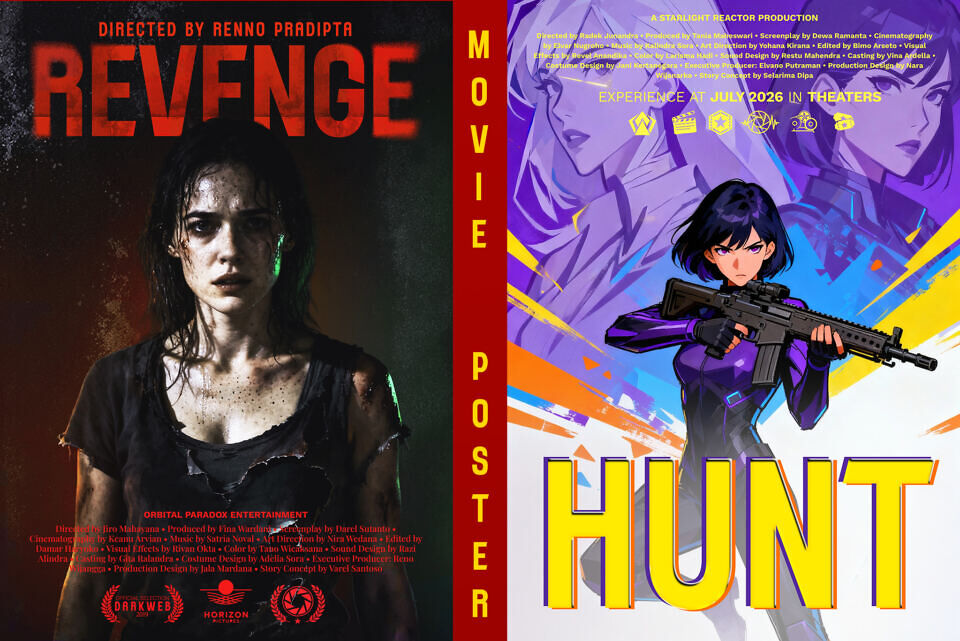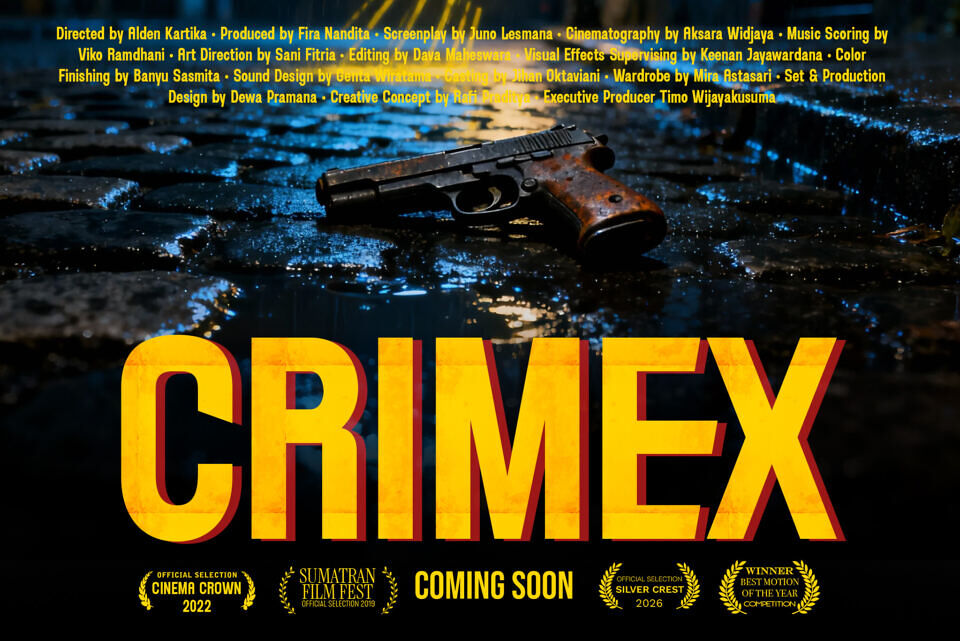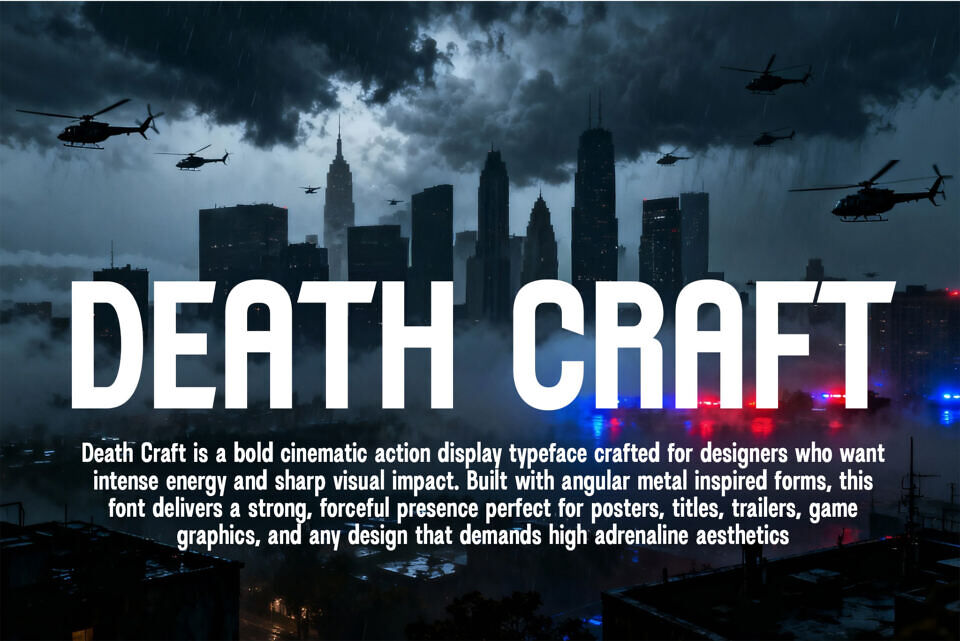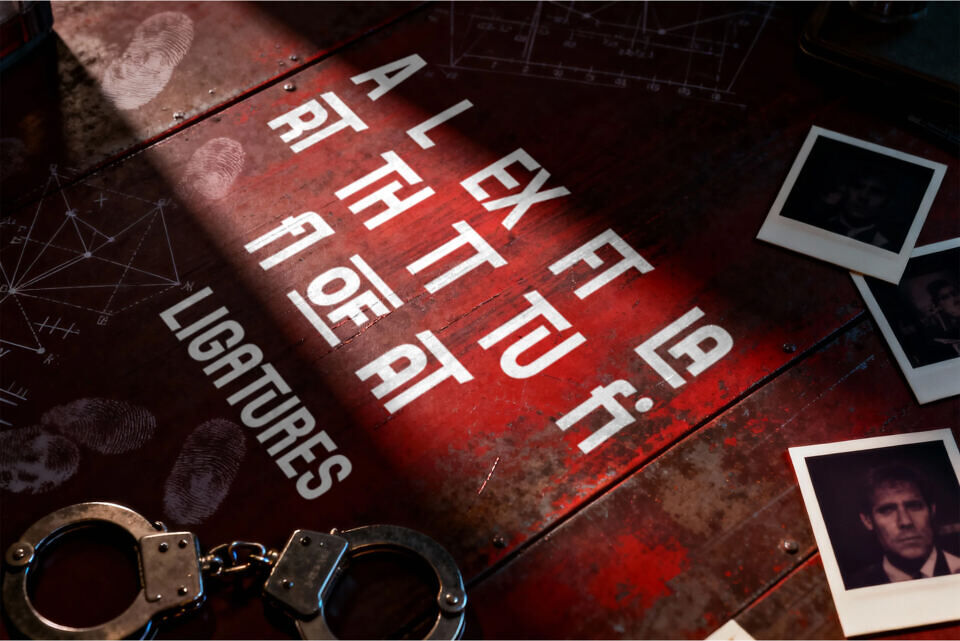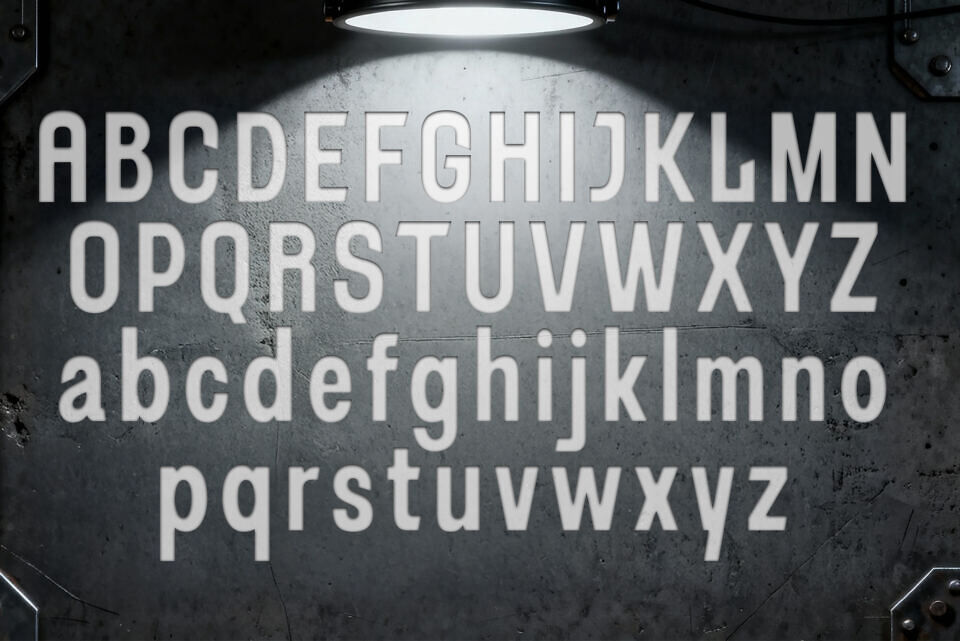
Death Craft Font
Death Craft is a cinematic action display typeface designed for creators who want to inject raw tension and heavy atmosphere into their visuals. Crafted with angular cuts, metallic depth, and a rugged industrial feel, this typeface delivers a striking look that instantly elevates titles and branding for film, gaming, and high-energy promotional media.
Each character is engineered with a sense of weight and drama, making the font ideal for dystopian settings, thriller trailers, cyber-action sequences, and any project that demands bold typography that stands out. Death Craft includes uppercase and lowercase characters, offering versatile combinations for impactful headline designs, logotypes, posters, and dramatic title cards.